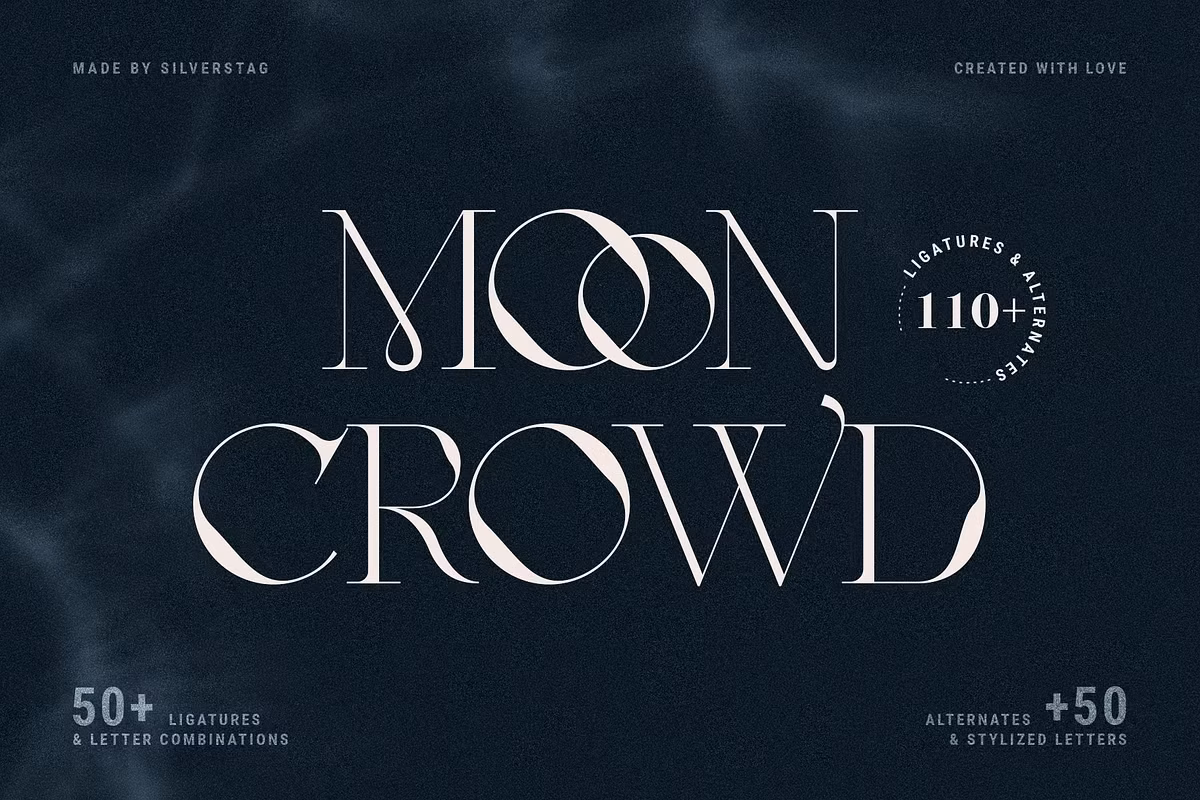
MOON CROWD - Elegant & Stylish Serif Font Free Download is a sophisticated and modern serif typeface designed to bring elegance and refinement to your projects. Featuring high contrast strokes, sharp serifs, and balanced proportions, this font is perfect for luxury branding, editorial design, high-end product packaging, and wedding invitations.
Its timeless design ensures versatility across various applications, whether you're working on a chic logo, a stylish magazine layout, or an upscale event invite. MOON CROWD adds an air of elegance and professionalism to any design, making it a perfect choice for modern, upscale projects.